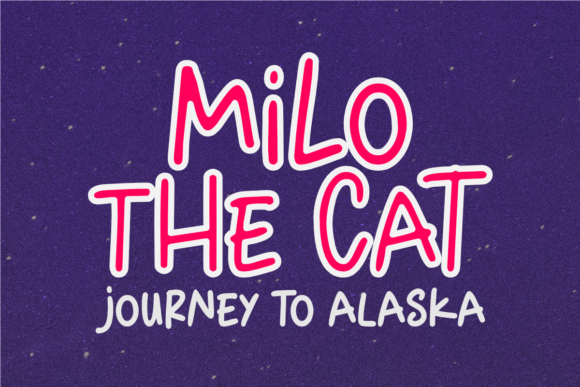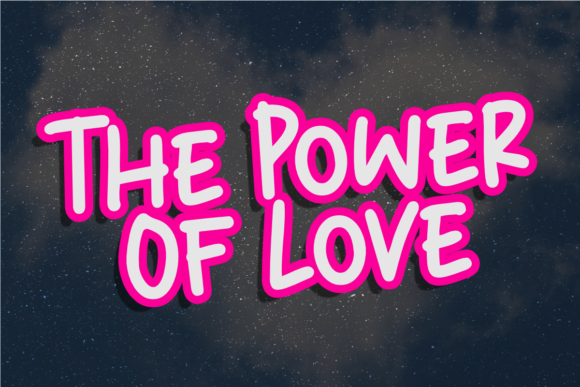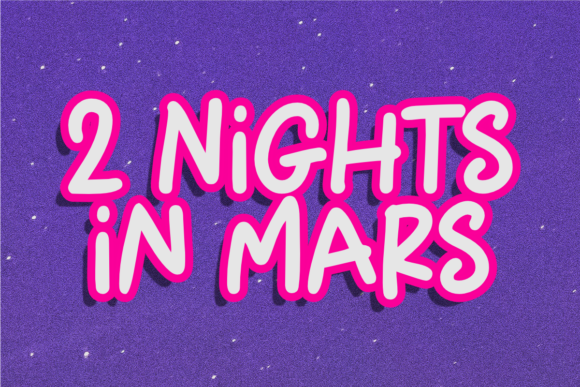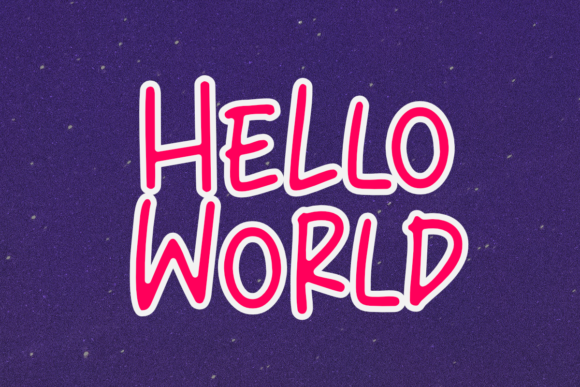
Introduction to Legendary Story Font
Today, we’re shining the spotlight on a font that’s sure to become your new BFF: the Legendary Story Font. This playful display font is the perfect companion for your most creative projects and crafty ideas. With its bold and inviting style, it’s guaranteed to make your designs stand out from the crowd.
Key Features of Legendary Story Font
- High-quality, professional font suitable for creative projects, with a transparent background for easy layering.
- Designed with a unique, eye-catching style that adds a touch of elegance to any project, from posters to book covers.
- Perfect for use in creative projects, such as book covers, posters, and infographics, where a high-quality font is essential.
Honest Review: Legendary Story Font
I recently had the chance to dive into the Legendary Story Font, and I must say, it’s an intriguing addition to my design arsenal. ✨ The font’s unique style and versatility make it an excellent choice for creative projects that require a touch of elegance and sophistication.
Here are some of the things I like about the Legendary Story Font:
- Transparent background option for added flexibility
However, I do have a few reservations about this font:
- ⚠️ Limited character set, which may not be ideal for longer texts
- ⚠️ Not suitable for display on all devices, as some characters may not render correctly
Overall, I’m impressed with the Legendary Story Font. While it’s not perfect, it’s a great addition to any designer’s toolkit, and I’d highly recommend it for projects where a touch of elegance is needed.
Common Use Cases for Legendary Story Font
The Legendary Story Font is perfect for a variety of creative projects, including book covers, posters, and social media graphics. Its high-quality design and versatility make it a valuable design resource for any project. You can download the font for free and use it in your next creative project.